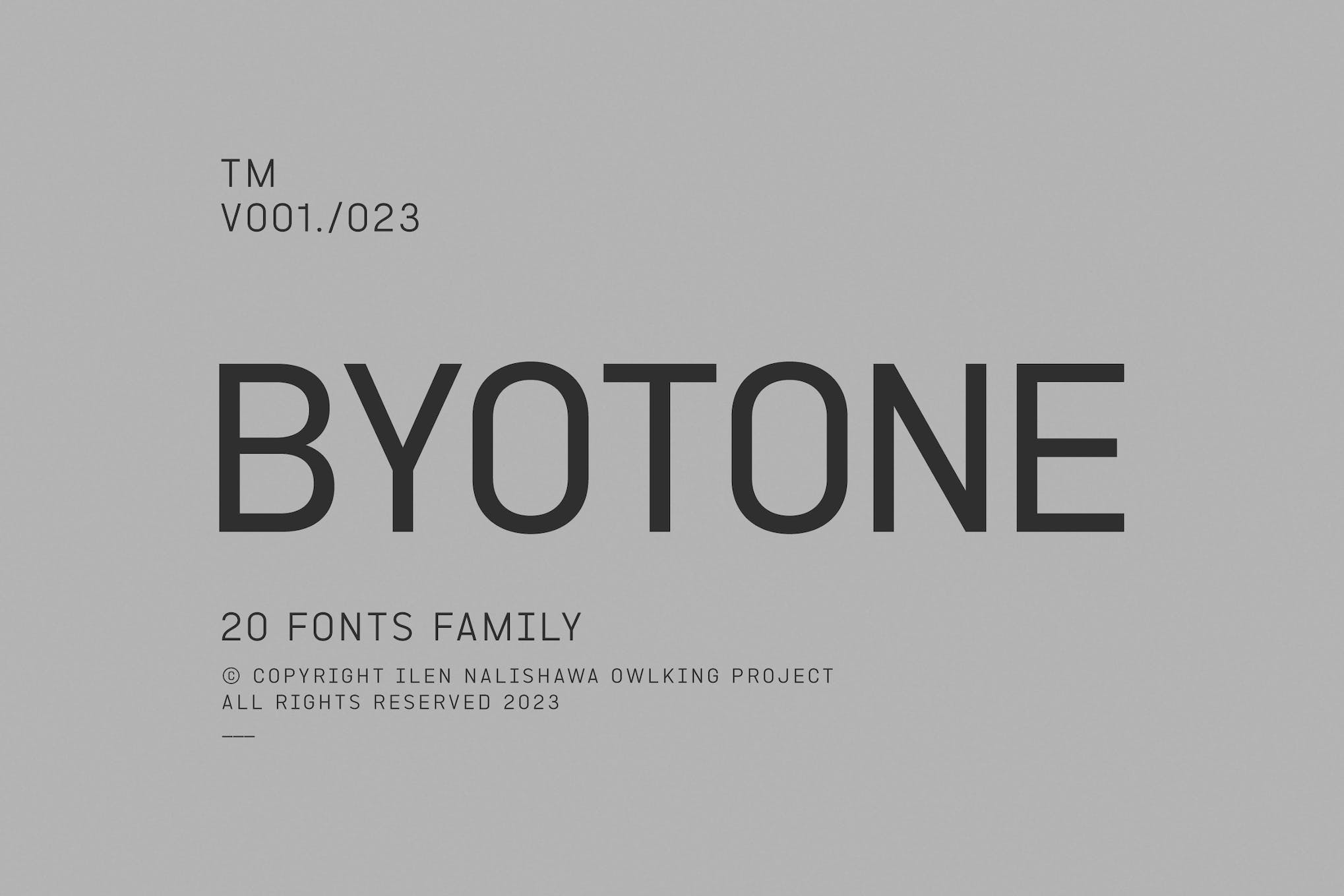
Monogamy Modern Monospace Font
Monogamy is a contemporary monospace display font, designed to enhance any design project with its sleek presence. Tailored with uppercase, lowercase, symbols, punctuation, numeral, ligature, and alternate features, it is also equipped with multilingual support. Available in OTF, TTF, WOFF, and WOFF2 file forms, the Monogamy Modern Monospace Font breathes life and elegance into your creative ideas.
Enfonix Stretch Font
Enfonix Stretch Font presents a stylish modern sans display font, perfect for logos, magazines, and posters. Dynamically shaped, it offers three width sizes and two typeface variations (Std and Pro), including a striking monospaced style. Both styles feature uppercase and lowercase letters, symbols, numbers, and multilingual support, ensuring versatile usability. Whether you desire standard form or seek a unique and proportional typeface, Enfonix has you covered.
Maziglow Modern Monospace Sans Serif
Maziglow is a modern, monospace sans serif font with a vintage typewriter feel, perfect for varied creative endeavors. Its classic style is ideal for logo and brand designs, magazine layouts, or fashion promotions. Beyond that, you can use it for designing tickets, stationery, blog layouts, advertisements, or even book covers. Try Maziglow for any project requiring a timeless touch.
Byotone Monospace Font
Byotone Monospace Font is inspired by monospaced letters, but crafted with normal spacing. Ideal for headlines for its minimalist modern aesthetics, Byotone is professional yet contemporary. It comes with 20 weights including italic styles and is versatile, with lowercase letters that are perfect for long texts. Embrace the exploratory essence of Byotone today!